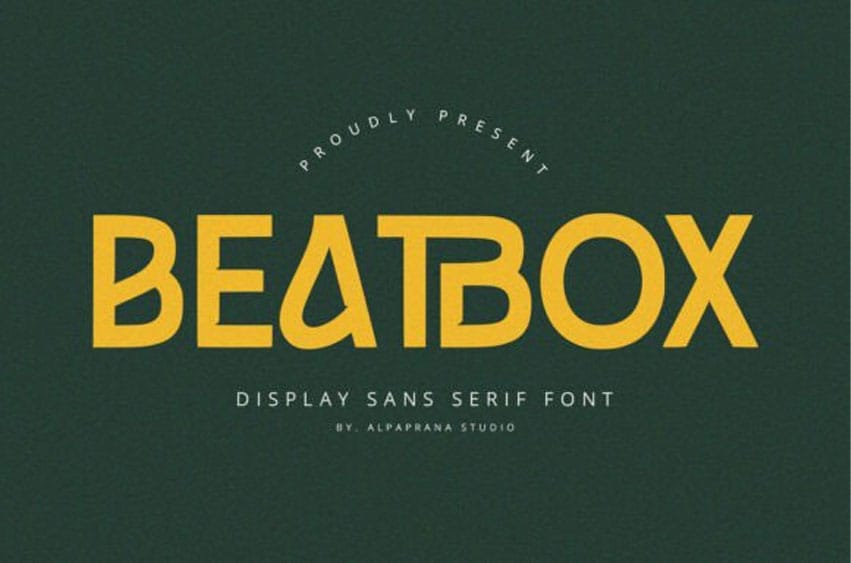
Beatbox Font is a display sans serif font with elegant and modern feels. It will be perfectly used for Branding, Logo Design, Lettering, Logotype, Clothing, Posters, magazines, packaging, posters, shopping bags, t-shirts, book covers, photography, special events, and other design projects.